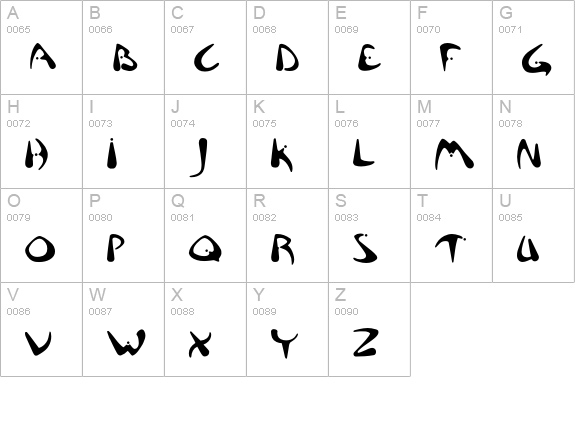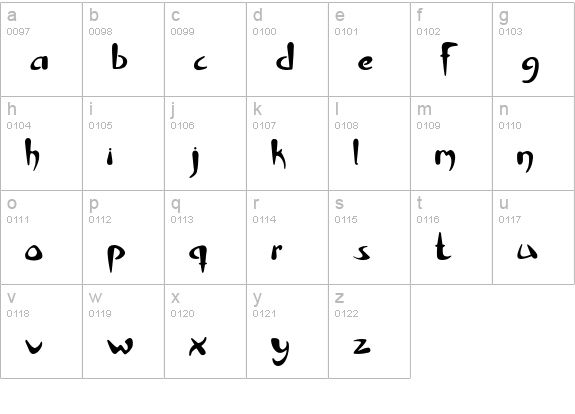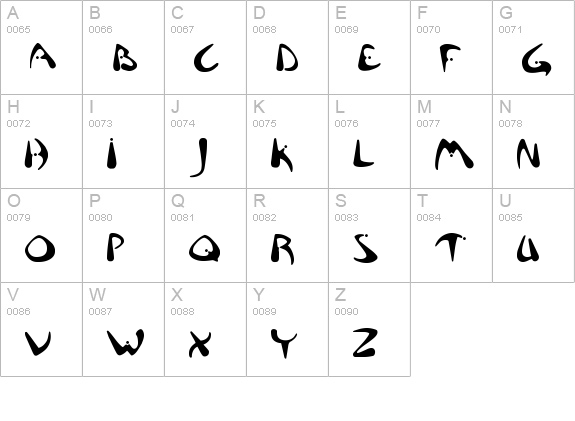
Rhinos Font Details
Rhinos font is a stunning and bold typeface that exudes power and elegance. Its strong and sharp letterforms make a lasting impression, captivating the attention of any reader. This font is perfect for projects that require a touch of sophistication and strength, such as impactful headlines, eye-catching logos, or striking branding materials. What sets Rhinos font apart is its versatility. It seamlessly blends into various design styles, whether it be modern, futuristic, or even vintage. With its clean lines and balanced proportions, Rhinos font provides a harmonious and visually appealing aesthetic that is sure to elevate any design it is used in. One of the best things about Rhinos font is that it is free! Yes, you read that right. This incredible typeface is freely available to download at FontsMarket.com. Now you can enjoy the beauty and impact of Rhinos font without worrying about any costs or limitations. It's the perfect opportunity to enhance your design projects without breaking the bank. Whether you are a professional designer or a passionate hobbyist, Rhinos font is a must-have in your font library. Its versatility, elegance, and affordability make it an invaluable tool that will elevate your designs to new heights. So don't miss out on this amazing opportunity to download Rhinos font for free at FontsMarket.com and unleash your creativity like never before.